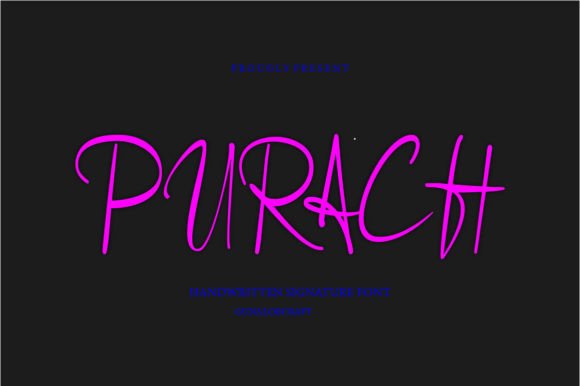
Introducing "Purach Font" – The Authentic Script Font Designed to Ignite Your Creative Designs
Dive into the world of captivating handwritten typography with Purach Font, a remarkable display font crafted with the intent to evoke a playful and charming touch to your creative ideas. Originating from the gifted hands of gunaloe12, this elegant script font exudes a natural, handmade feel that will undoubtedly add a spark of personality to any design project you undertake.
It's not just a font; it's a journey through creativity. With Purach Font, you hold the key to unlocking a realm of endless possibilities. Envision your designs taking center stage, captivating audiences with their playful elegance. From eye-catching logos to heartfelt invitations, from social media posts that pop to website headers that speak volumes, Purach Font is your perfect companion, ready to elevate your designs to new heights.
Imagine the impact of your R&B cover designs adorned with the allure of Purach Font. Its handwritten charm will infuse your music with an intimate, personal touch, drawing listeners in and creating an emotional connection that resonates deeply. Unleash the power of this font to make your covers stand out in a sea of sameness, captivating music lovers with their unique charm and undeniable appeal.
With Purach Font, you're not just downloading a font; you're embracing a world of endless creative opportunities. Its versatility knows no bounds, as it seamlessly adapts to a myriad of design concepts, adding a touch of magic to everything it graces. Let your imagination run wild as you craft stunning posters, alluring branding materials, enchanting wedding invitations, or heartfelt greeting cards.